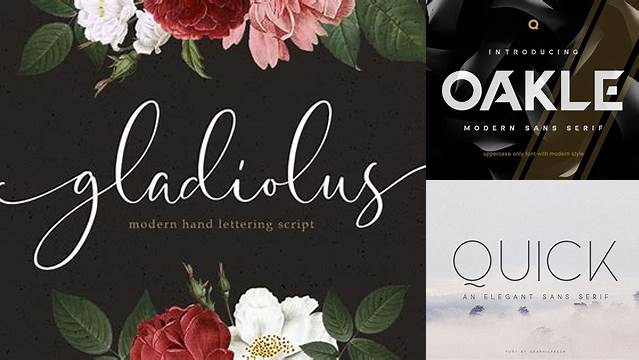
Elegant Fonts: Free Downloads For Stunning Designs
Hey guys! Are you looking to add a touch of class and sophistication to your designs? Finding the perfect font can be a game-changer. Elegant fonts can elevate your projects, whether you're working on wedding invitations, branding materials, or website designs. The right font can speak volumes, conveying sophistication, style, and a sense of timeless beauty. Let’s dive into some of the best elegant fonts you can download for free, and how to use them effectively.
Why Use Elegant Fonts?
Elegant fonts bring a certain je ne sais quoi to your projects. They are characterized by their refined lines, graceful curves, and overall sense of sophistication. Here’s why you might want to use them:
- Conveying Sophistication: Elegant fonts immediately signal quality and refinement. They're perfect for brands aiming to project a high-end image.
- Creating a Luxurious Feel: Using an elegant font can transform a simple design into something that feels luxurious and special. Think about high-end fashion brands or exclusive event invitations.
- Enhancing Readability: While some decorative fonts can be hard to read, many elegant fonts prioritize legibility, ensuring your message is clear and stylish.
- Versatility: Elegant fonts aren't just for formal occasions. They can be used in a variety of projects, from websites to logos, adding a touch of class to everything they touch.
Key Characteristics of Elegant Fonts
When we talk about elegant fonts, certain characteristics make them stand out. Here’s what to look for:
- Serifs: Many elegant fonts feature serifs—small lines or strokes attached to the end of a larger stroke in a letter or symbol. These can give a font a traditional and polished look. Fonts like Times New Roman and Georgia are classic examples.
- Clean Lines: Whether serif or sans-serif, elegant fonts often have clean, well-defined lines. This clarity contributes to their sophisticated appearance.
- Contrast: A good elegant font will have a balance of thick and thin strokes, creating visual interest and making the font more dynamic.
- Balance and Proportion: Elegant fonts are designed with careful attention to balance and proportion, ensuring that each letter complements the others.
Top Free Elegant Fonts for Download
Alright, let's get to the good stuff! Here are some fantastic elegant fonts that you can download for free. Each of these fonts brings something unique to the table, so you’re sure to find something that fits your needs.
1. Playfair Display
Playfair Display is a classic choice for a reason. This serif font exudes elegance and sophistication, making it perfect for headlines, titles, and display purposes. Its high contrast and delicate serifs give it a timeless appeal.
- Best For: Headlines, titles, posters, and formal invitations.
- Why It Works: Playfair Display has a strong, commanding presence that draws the eye. It’s especially effective when used sparingly to highlight key elements of your design.
- Example Use: Imagine using Playfair Display for the title of a high-end fashion magazine or the heading of a luxury hotel's website. It instantly elevates the design, giving it a sense of prestige and sophistication. For a wedding invitation, this font adds a touch of romance and tradition.
2. Montserrat
While Montserrat is a sans-serif font, it still maintains a level of elegance through its clean, modern design. It’s incredibly versatile and works well in a variety of contexts.
- Best For: Body text, headlines, and UI design.
- Why It Works: Montserrat’s geometric structure gives it a contemporary yet refined feel. It’s highly legible, making it a great choice for both print and digital projects.
- Example Use: Use Montserrat for the body text of a corporate website to maintain a professional and clean look. It also works well in branding materials, such as business cards and brochures, where you want to convey a sense of modernity and efficiency. For a blog, Montserrat ensures readability while still looking stylish.
3. Raleway
Raleway is another sans-serif option that offers a sophisticated touch. Its elegant letterforms and slightly condensed design make it a great choice for a variety of applications.
- Best For: Headlines, logos, and branding materials.
- Why It Works: Raleway has a sleek, modern aesthetic that feels both elegant and approachable. It’s particularly well-suited for projects that need to convey a sense of innovation and style.
- Example Use: Raleway would be perfect for a tech startup's logo, giving it a cutting-edge yet sophisticated appearance. It also works well in website headers, drawing attention without being overly flashy. For a personal blog, Raleway adds a touch of sophistication, making it feel more professional.
4. Lora
Lora is a well-balanced serif font with roots in calligraphy. Its contemporary feel makes it a versatile choice for both body text and headlines.